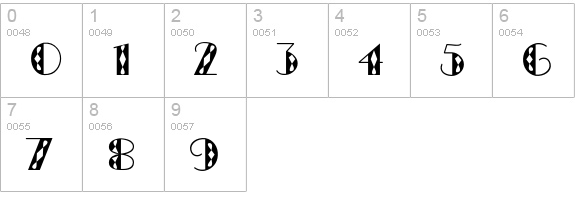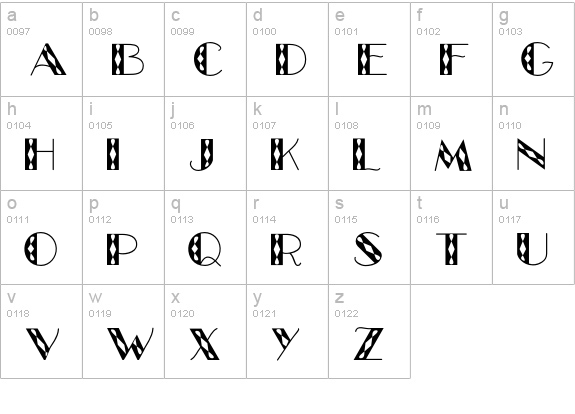
Manege Font Details
Manege font is a stunning typeface that effortlessly combines elegance with a modern twist. Its sleek and sophisticated design will captivate your audience, making it perfect for a wide range of creative projects. With its clean lines and balanced proportions, Manege font exudes professionalism and refinement. Whether you're designing a logo, crafting an invitation, or creating eye-catching headlines, this font will elevate your work to new heights. One of the standout features of Manege font is its versatility. It can effortlessly adapt to various design styles, from minimalist to bold and expressive. The carefully crafted letterforms ensure legibility, making it a reliable choice for both print and digital projects. What sets Manege font apart is its availability as a free download. You can easily access this font at FontsMarket.com, a trusted source for high-quality fonts. This means that you can enjoy the beauty and functionality of Manege font without any cost, making it an excellent option for designers on a budget. So, take your design projects to the next level with Manege font. Its timeless elegance and accessibility will leave a lasting impression on your audience. Download it for free at FontsMarket.com and experience the power of this remarkable typeface.